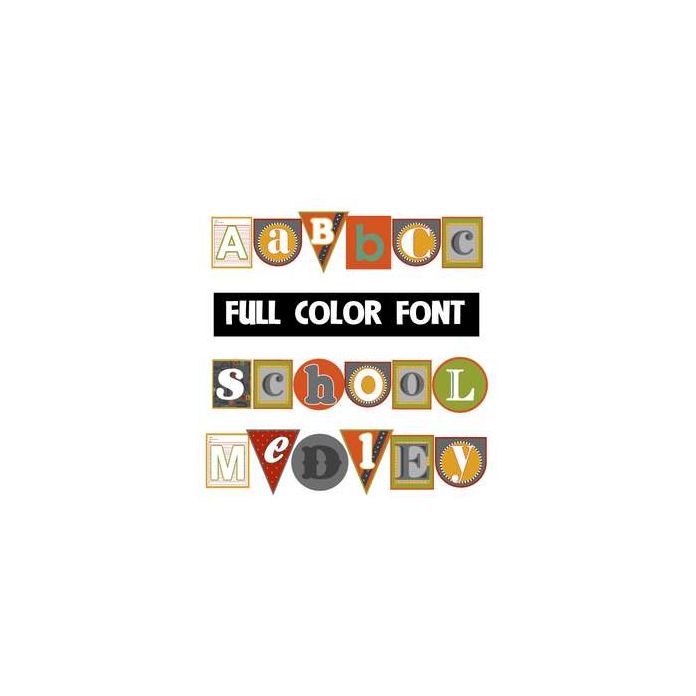
This full-color font features school imagery on pennants. This font works best for titles, displays, posters and more. Please note color fonts will show as black in non compatible programs. This font type is compatible with Silhouette Studio.